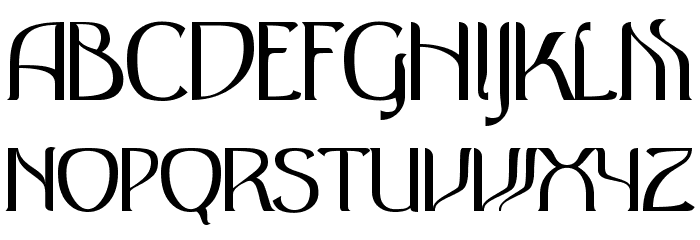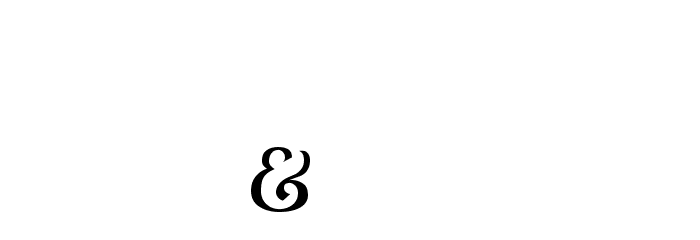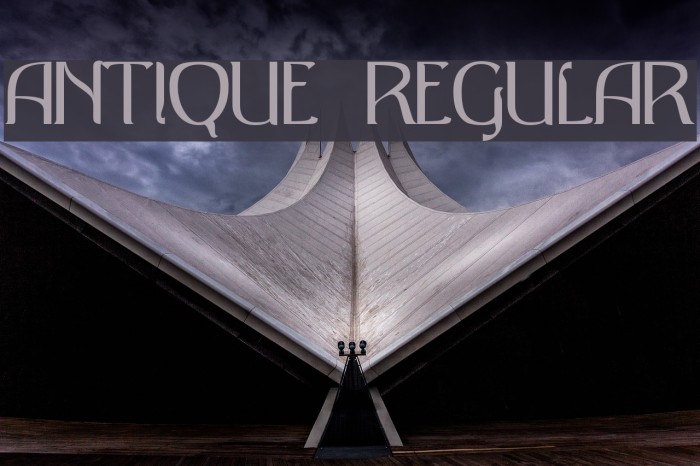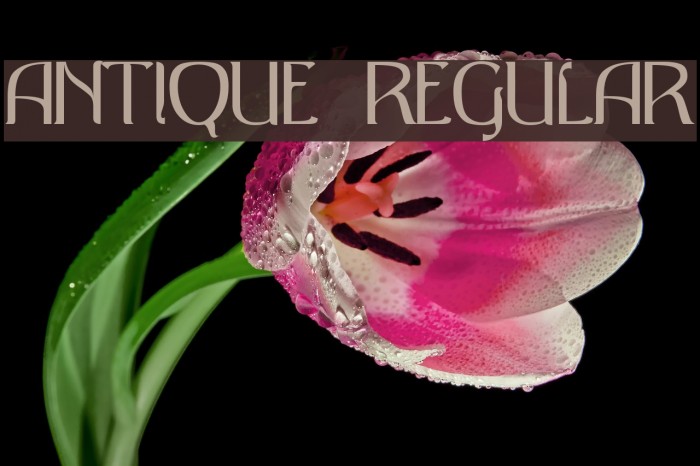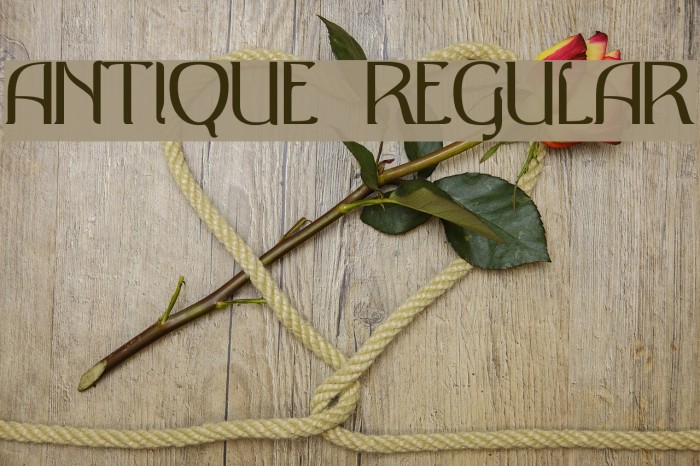
Antique Regular Font
This font features a unique blend of modern and classic elements, characterized by its elegant and flowing letterforms. The uppercase letters exhibit a distinctive flair with elongated strokes and subtle curves, creating a sense of movement and sophistication. The lowercase letters maintain a consistent style, complementing the uppercase with their graceful lines and balanced proportions. The ampersand symbol is particularly notable for its artistic design, adding a touch of creativity to the overall aesthetic. This font's design is both decorative and functional, making it suitable for a variety of applications.
A modern yet classic font with elegant, flowing letterforms and artistic details.
- Proposed Projects: Ideal for branding, invitations, posters, and editorial design where a touch of elegance is desired.
- Use Case: Logos, Headlines, Invitations